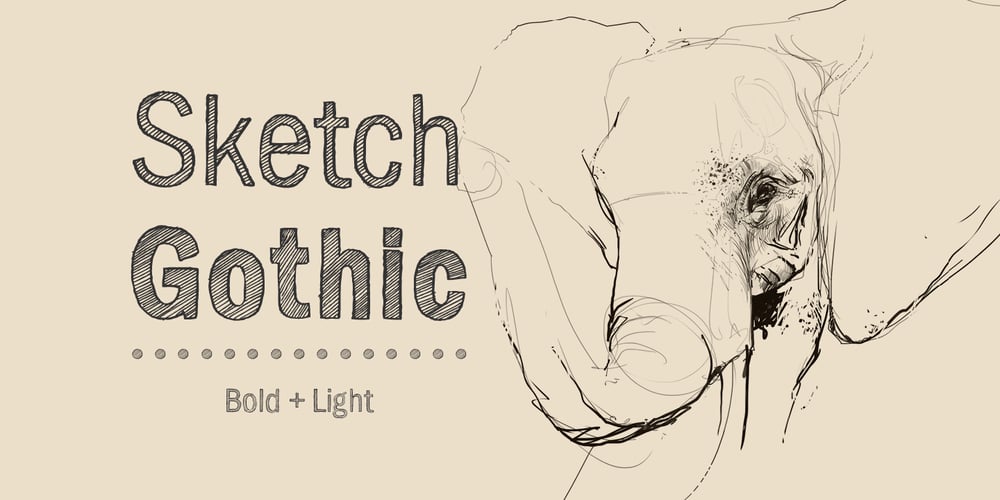
Sketch Gothic
Sketch Gothic font
Sketch Gothic Font Family was designed by Lukas Bischoff and published by artill. Sketch Gothic contains 2 styles and family package options. Sketch Gothic is a hand-sketched headline font. The family contains a light and bold weight; both complement each other perfectly. The mundane, constructed basic forms of the Franklin Gothic, get their charming touch by the handmade hatching. Impressions of dominance and warmth are equally created. Created solely by me from sketch by hand and then digitized, Sketch Gothic makes a perfect font to create the hand-made character look, or to supplement illustrations with typography.